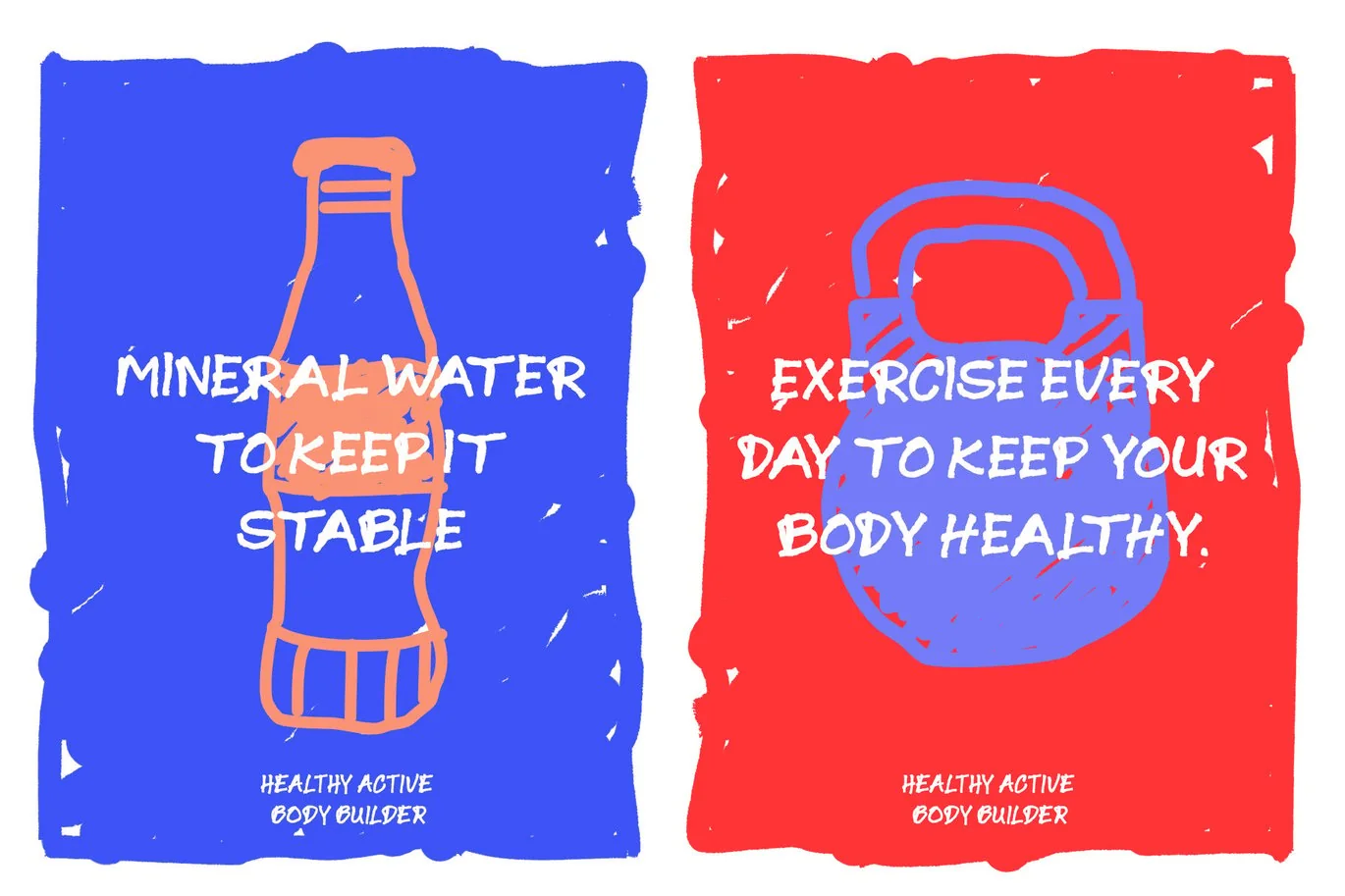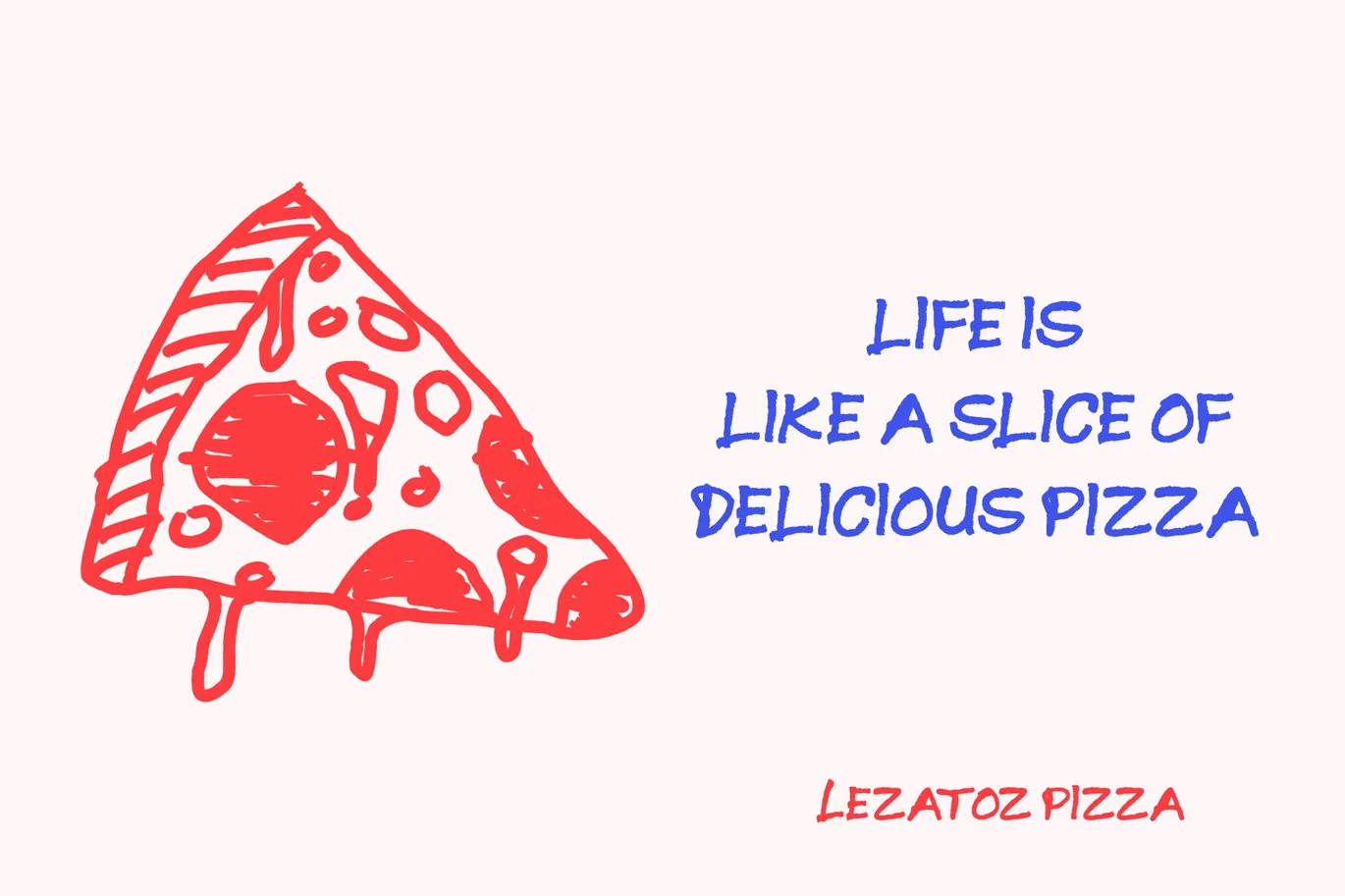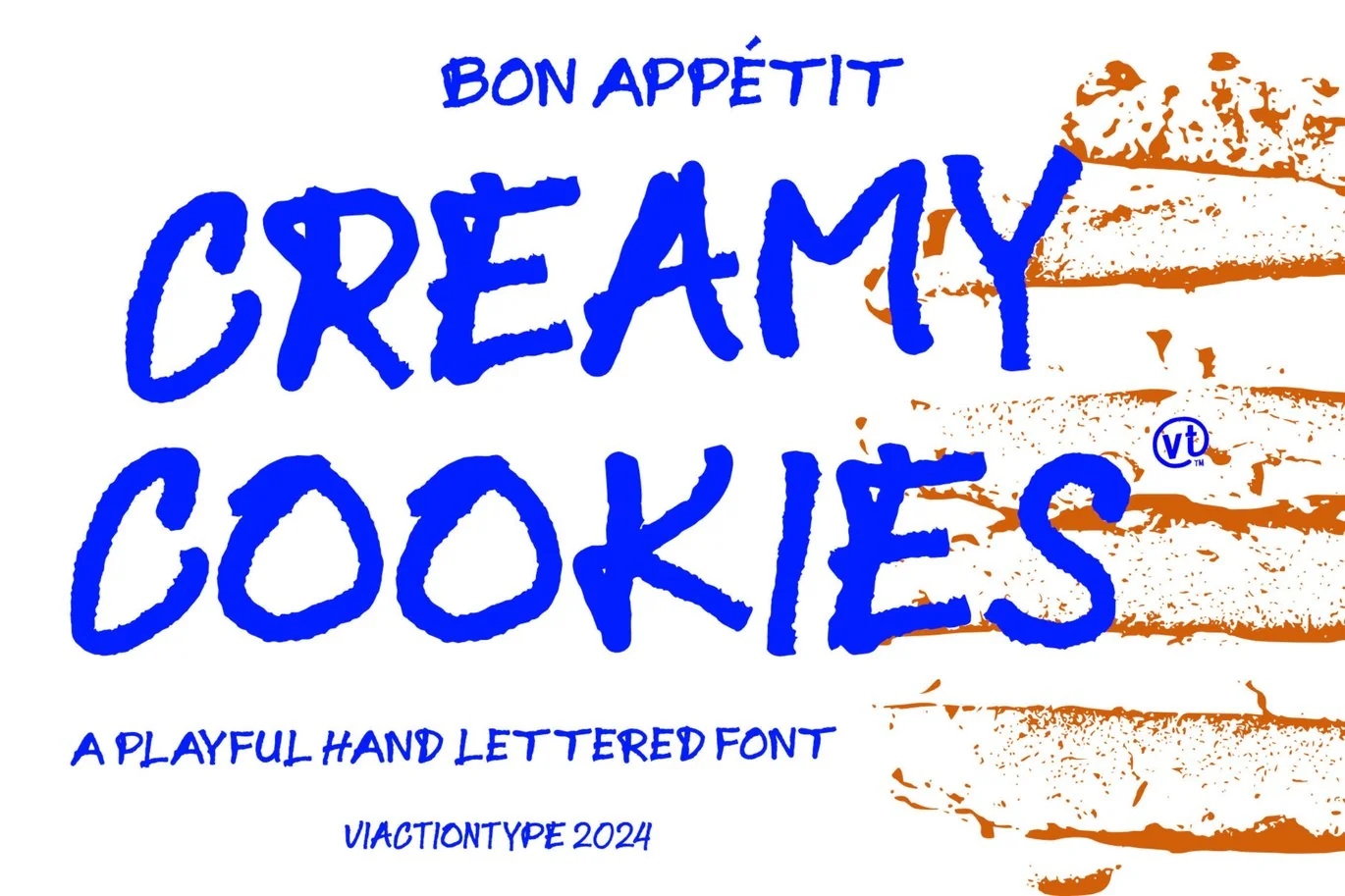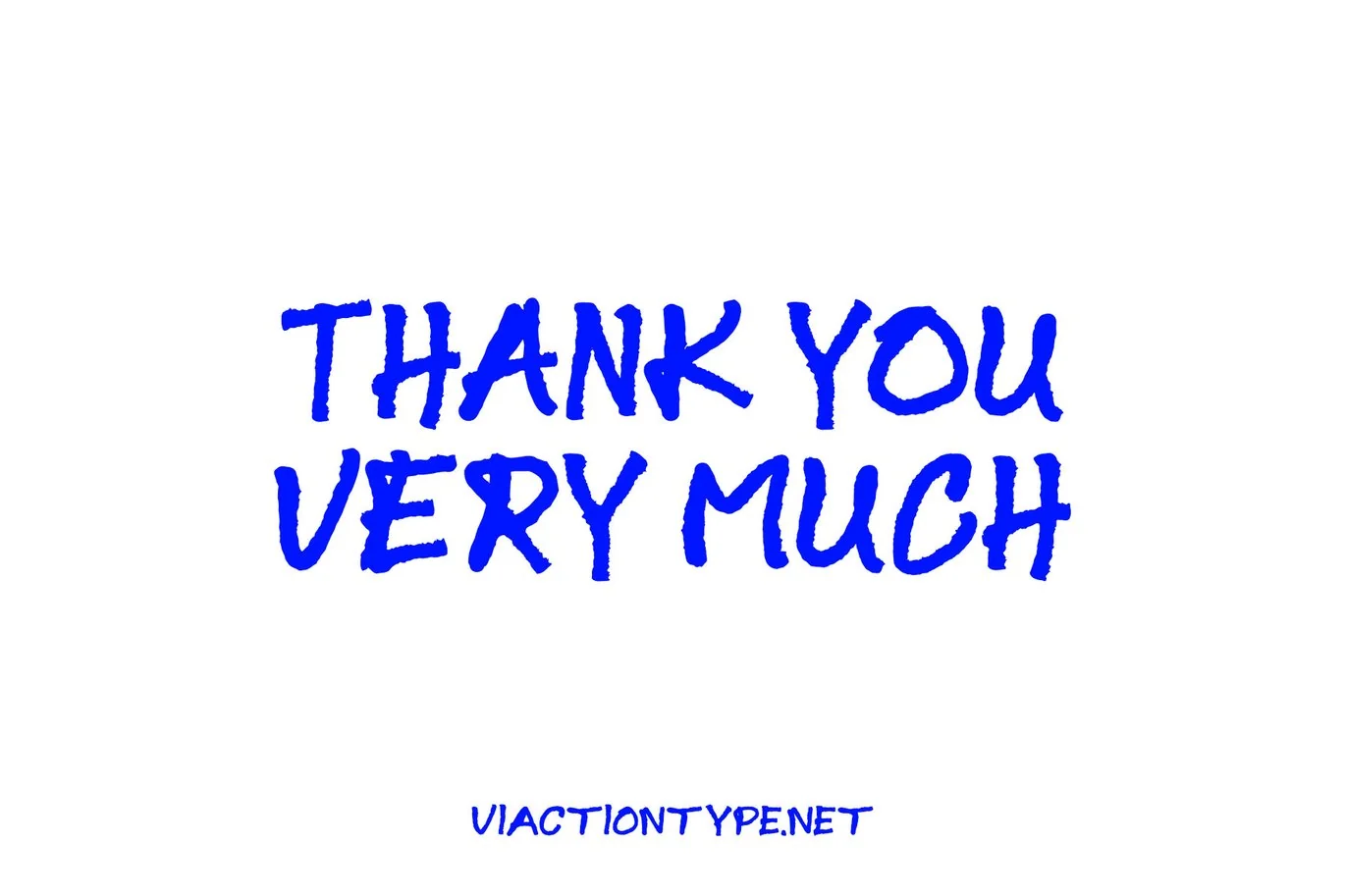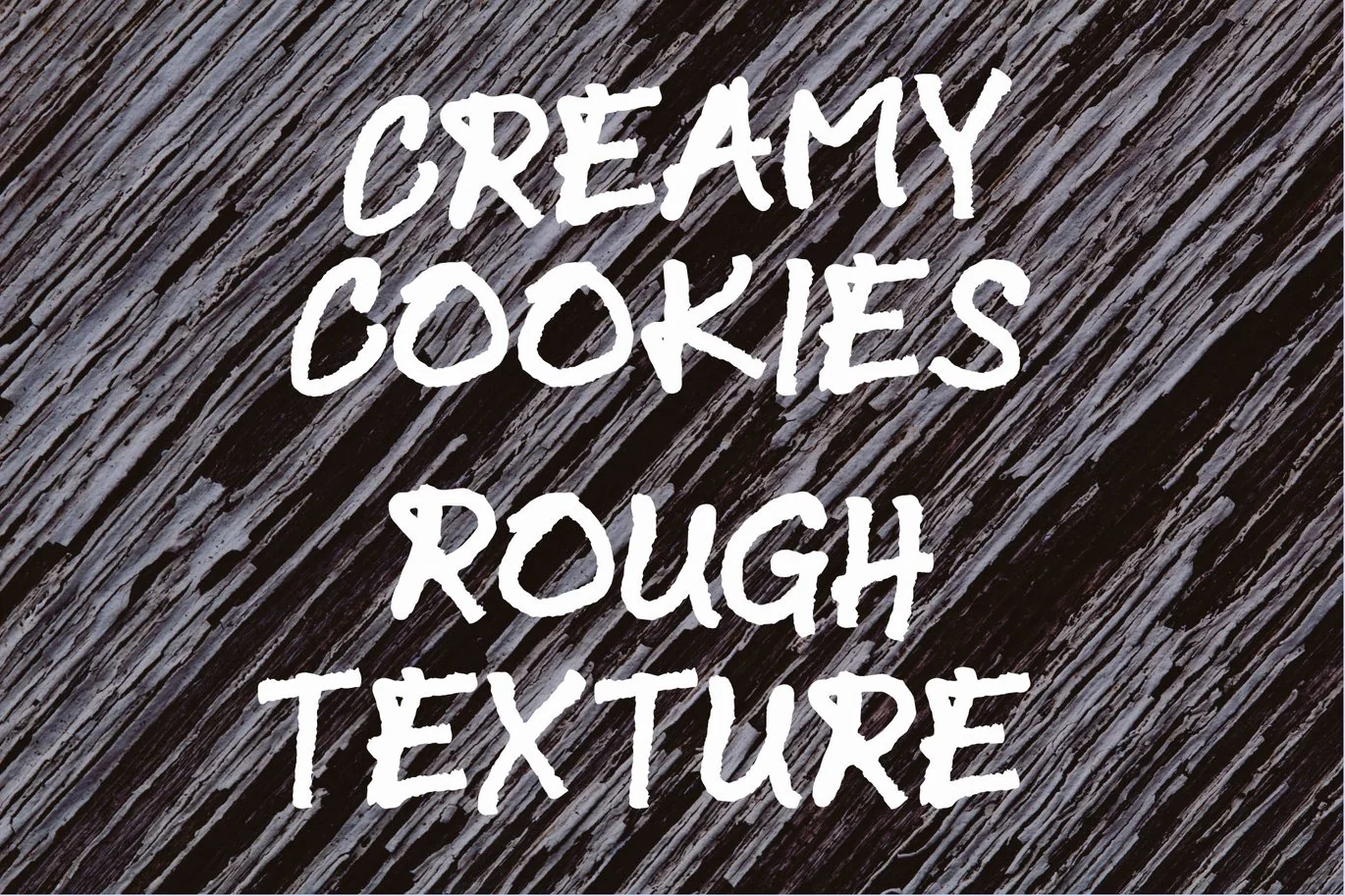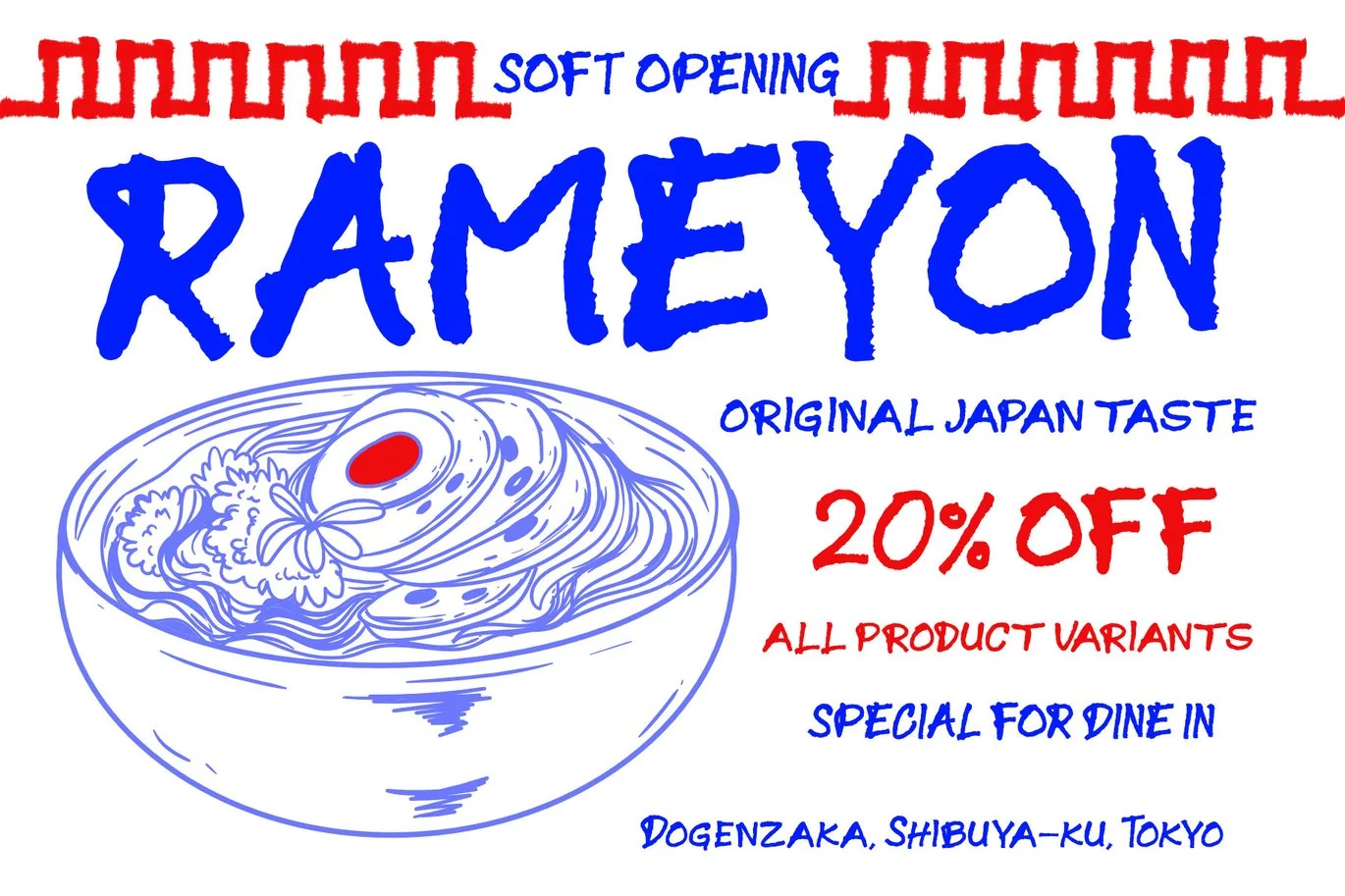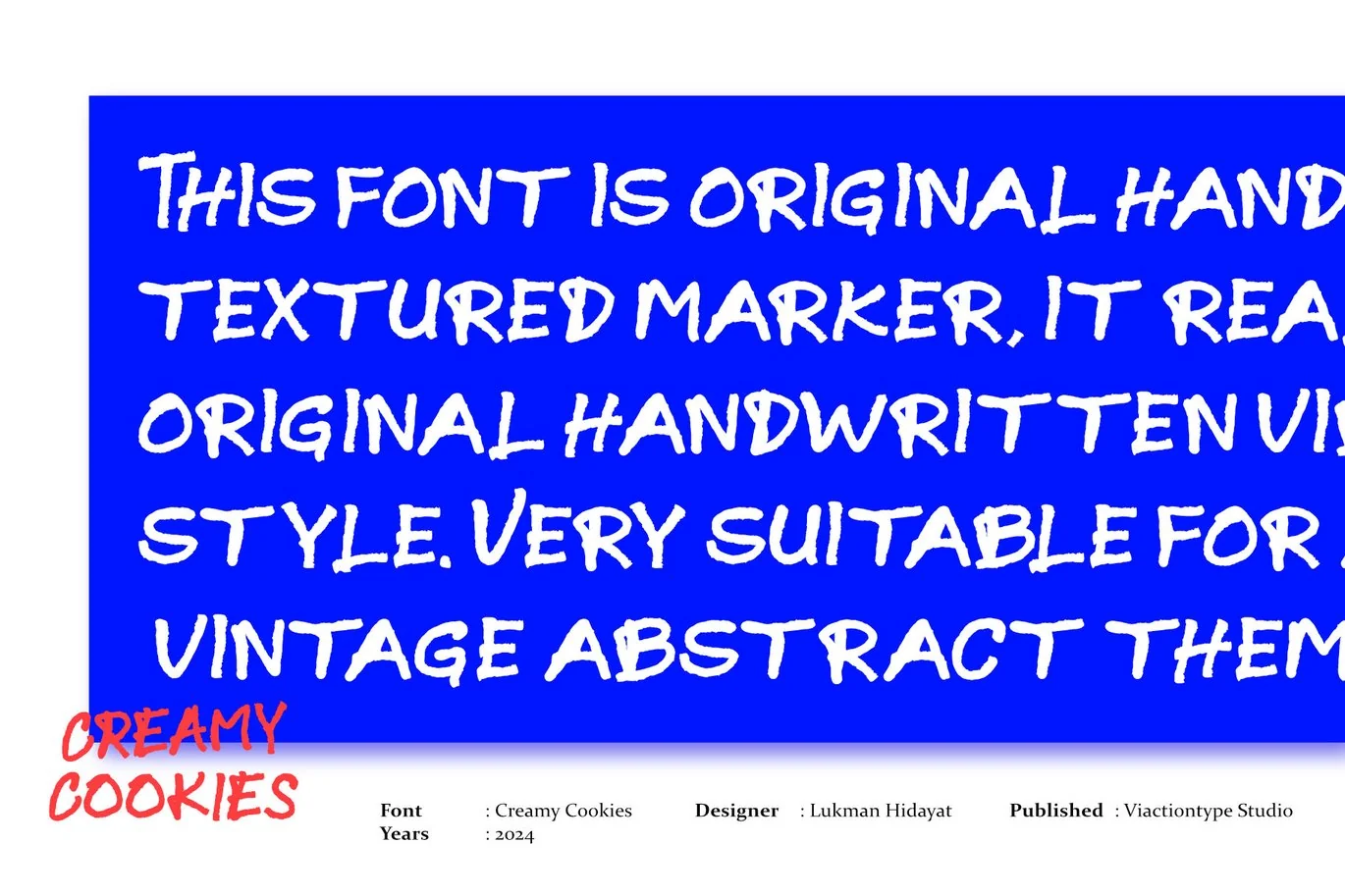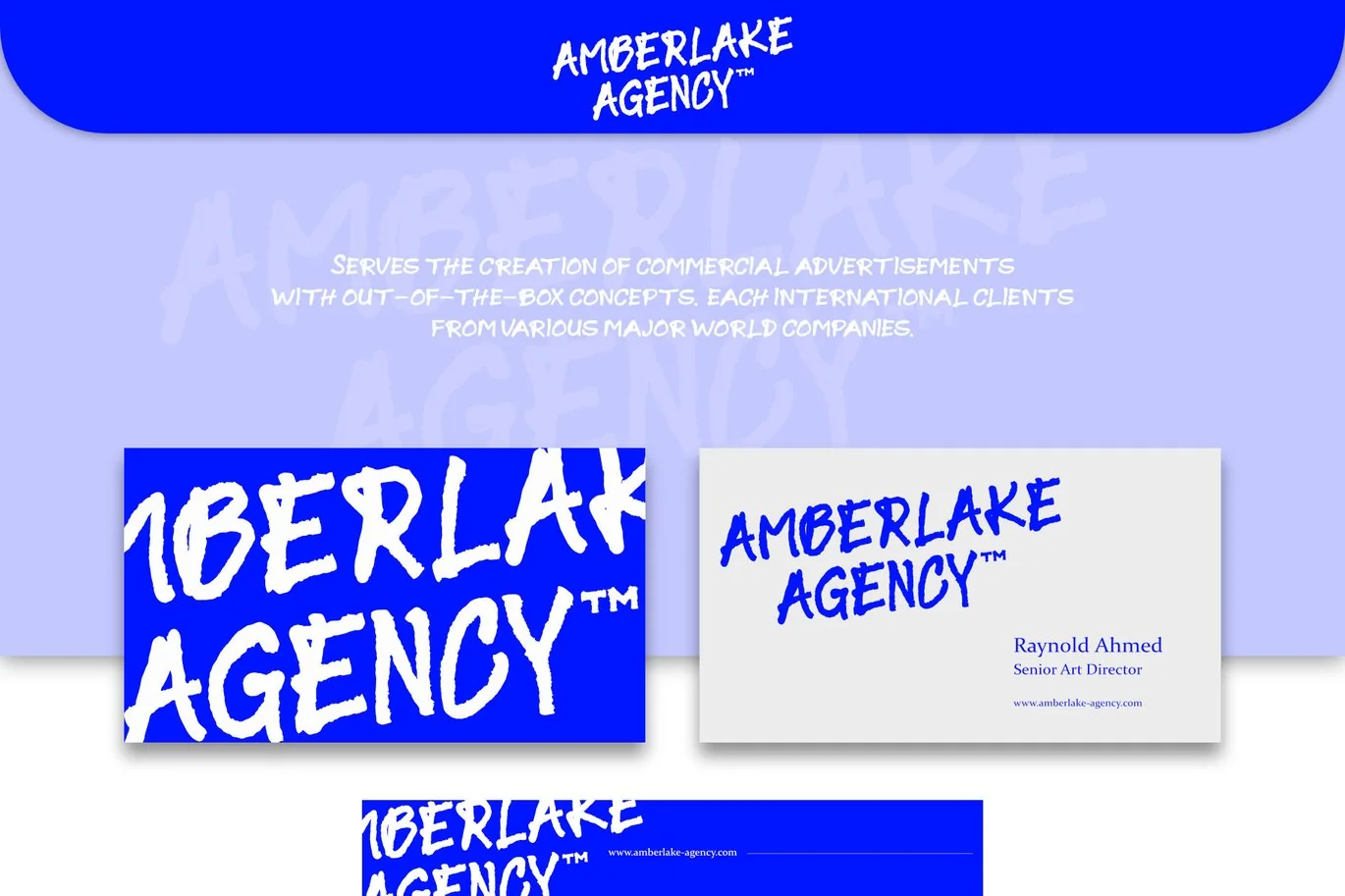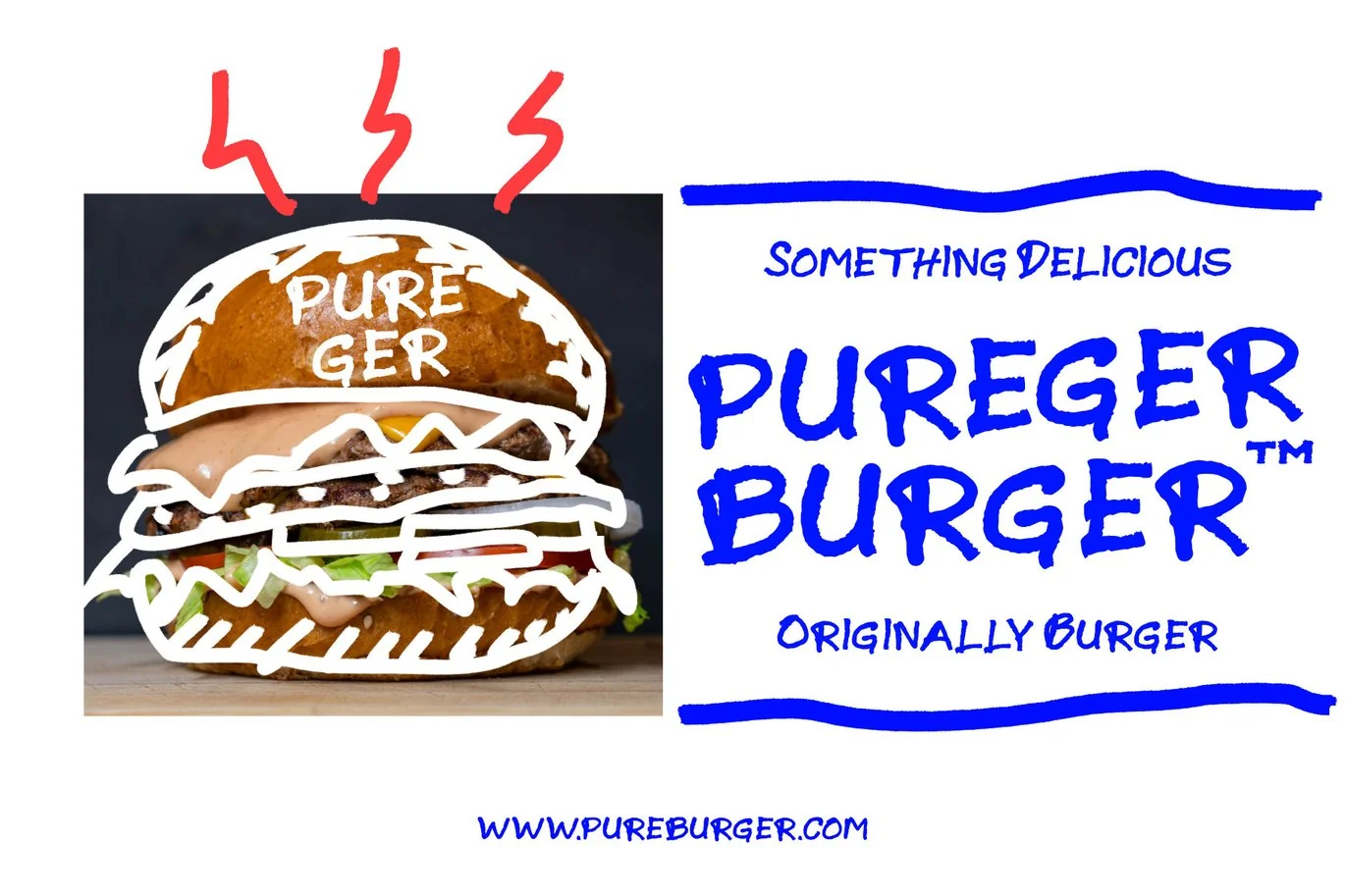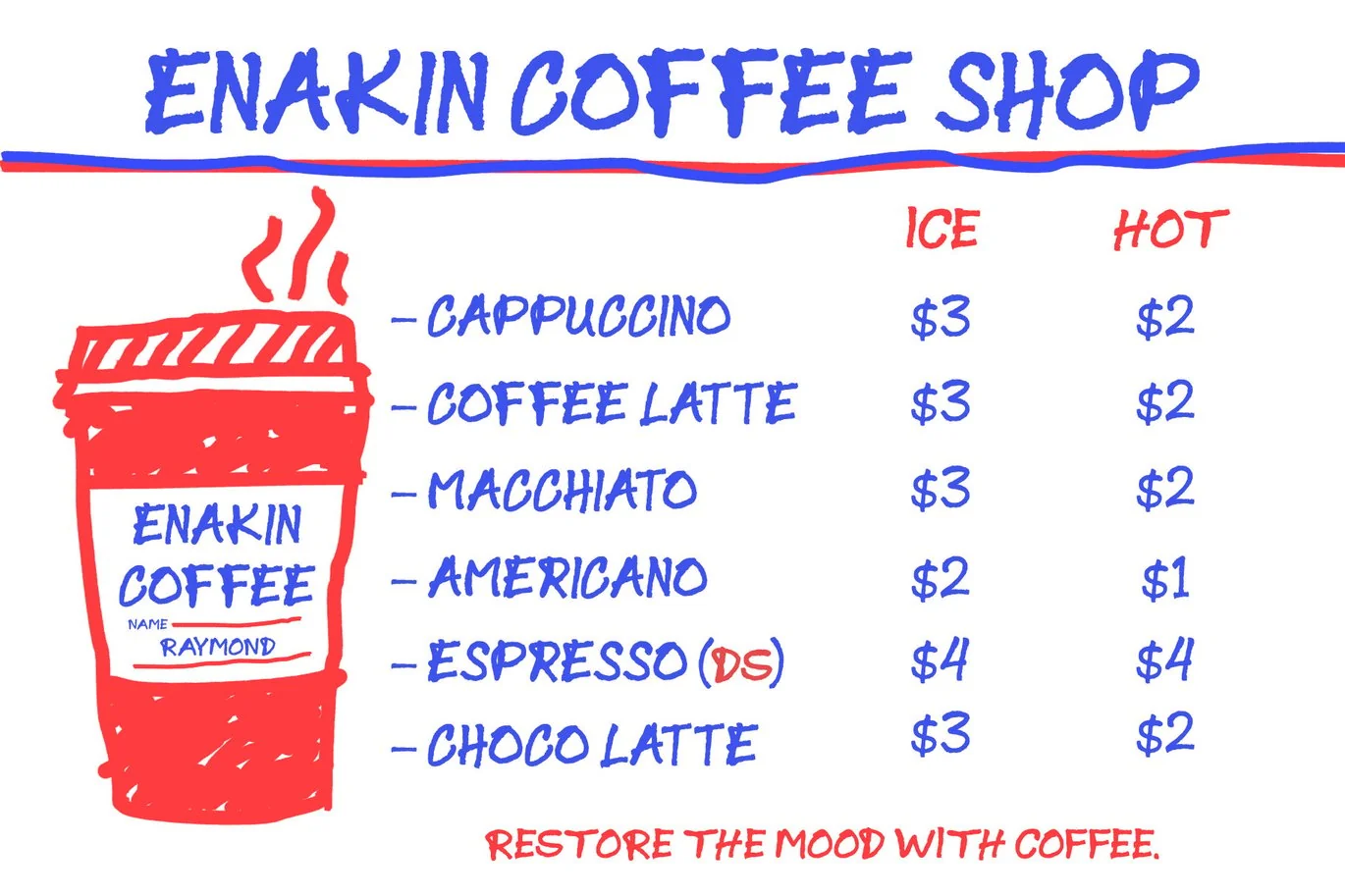
VT Creamy Cookies – Handlettered Font
Introducing Creamy Cookies – a delectable handwritten marker font that adds a sprinkle of charm to your designs. With its playful strokes and delightful curves, this font exudes a sense of whimsy and creativity, reminiscent of handwritten notes on a cozy afternoon.
Indulge your creative cravings and infuse your projects with a touch of sweetness. Perfect for branding, packaging, invitations, and more, “Creamy Cookies” adds a deliciously unique flavor to any design palette.
Satisfy your appetite for creativity and elevate your designs with “Creamy Cookies” today. Let your imagination run wild and watch as your projects come to life with a sprinkle of handwritten magic.